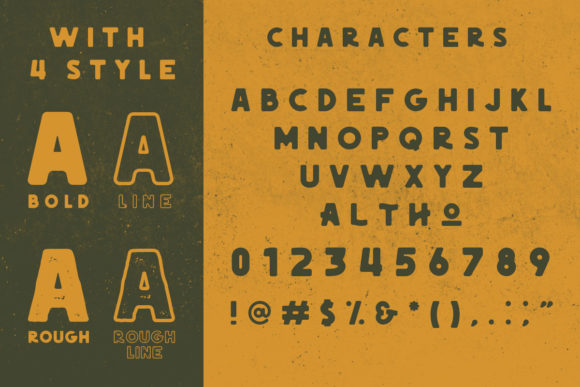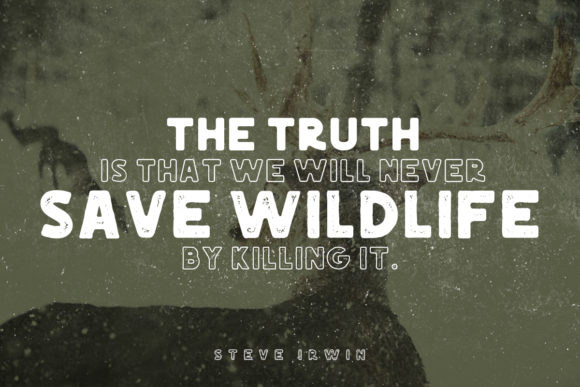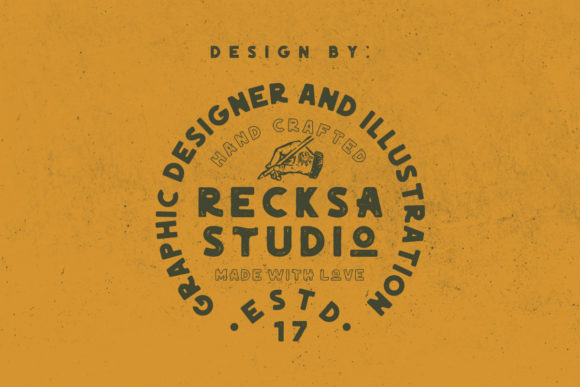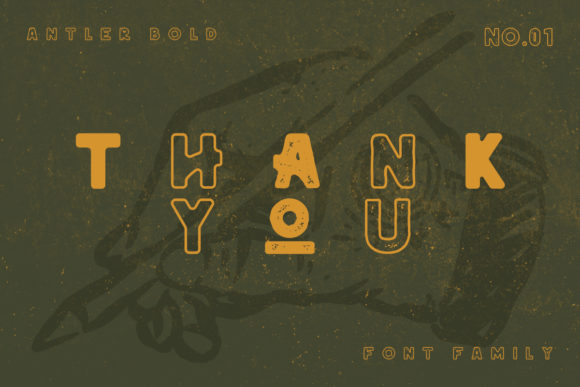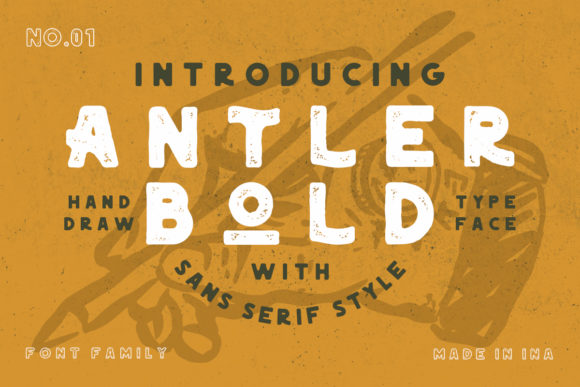
Introducing Antler Bold Font: A Timeless Classic with a Nostalgic Twist
In the world of typography, few fonts have managed to capture the essence of nostalgia and timelessness like Antler Bold. This classic sans serif font has been a staple in the design community for years, and its enduring popularity can be attributed to its unique blend of simplicity and character. In this article, we’ll take a closer look at Antler Bold, its features, and what makes it a must-have for designers and crafters alike.
A Brief History of Antler Bold
Antler Bold is a font that has been around for a while, and its origins date back to the early days of digital typography. Over the years, it has undergone several transformations, with its most recent iteration being a refined and modern take on the classic design. Despite its evolution, Antler Bold has managed to retain its nostalgic charm, making it a favorite among designers who appreciate vintage aesthetics.
What Makes Antler Bold Special?
So, what sets Antler Bold apart from other sans serif fonts? The answer lies in its stunning alternates and versatile style options. Antler Bold comes in four distinct styles, each with its own unique character and flair. Whether you’re looking for a bold and dramatic look or a more subtle and understated approach, Antler Bold has got you covered.
Key Features of Antler Bold Font
- Classic Sans Serif Design: Antler Bold boasts a timeless sans serif design that exudes simplicity and elegance.
- Stunning Alternates: The font features a range of stunning alternates that add a touch of sophistication and flair to your designs.
- Four Distinct Styles: Antler Bold comes in four distinct styles, allowing you to choose the perfect look for your project.
- Nostalgic Charm: The font’s nostalgic charm makes it perfect for designers who appreciate vintage aesthetics.
Uses of Antler Bold Font
Antler Bold is a versatile font that can be used in a variety of design projects, including:
- Branding and Logo Design: The font’s bold and eye-catching design makes it perfect for logos and branding projects.
- Print Design: Antler Bold is ideal for print design projects, such as brochures, posters, and business cards.
- Digital Design: The font’s clean and simple design makes it suitable for digital projects, such as websites, social media graphics, and email marketing campaigns.
- Crafting and DIY Projects: Antler Bold is also perfect for crafters and DIY enthusiasts who want to add a personal touch to their projects.
Tips for Using Antler Bold Font
Here are some tips for getting the most out of Antler Bold:
- Experiment with Different Styles: Don’t be afraid to try out different styles and alternates to find the perfect look for your project.
- Pair with Other Fonts: Antler Bold pairs well with other fonts, so feel free to experiment with different combinations.
- Use for Headings and Titles: The font’s bold design makes it perfect for headings and titles.
In conclusion, Antler Bold is a timeless classic that deserves a place in every designer’s font library. Its stunning alternates, versatile style options, and nostalgic charm make it a must-have for designers and crafters alike. Whether you’re working on a branding project, print design, or digital project, Antler Bold is sure to impress. So why not give it a try and see what you can create with this amazing font?
With its rich history, unique features, and versatility, Antler Bold is a font that will continue to inspire designers and crafters for years to come. So, go ahead and get creative with Antler Bold – the possibilities are endless!